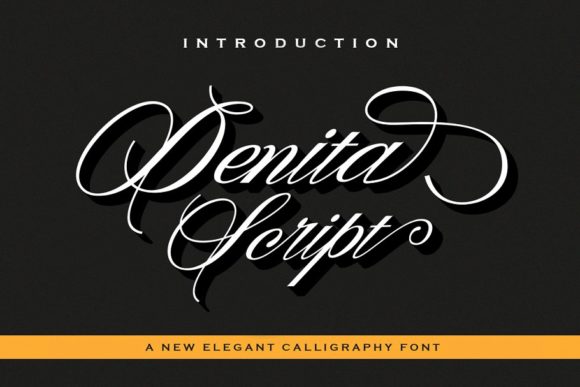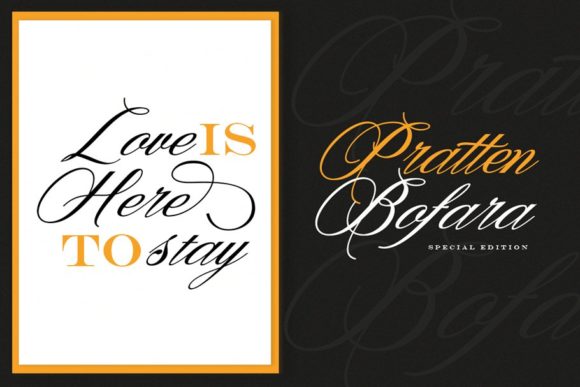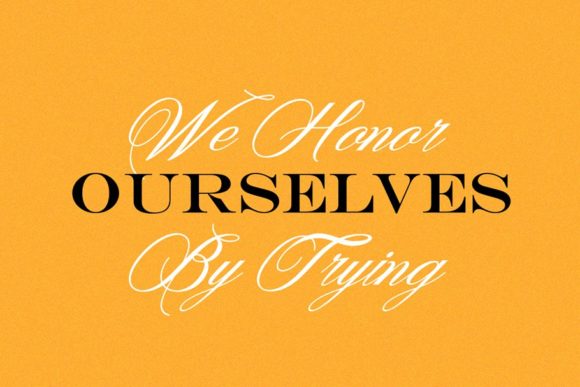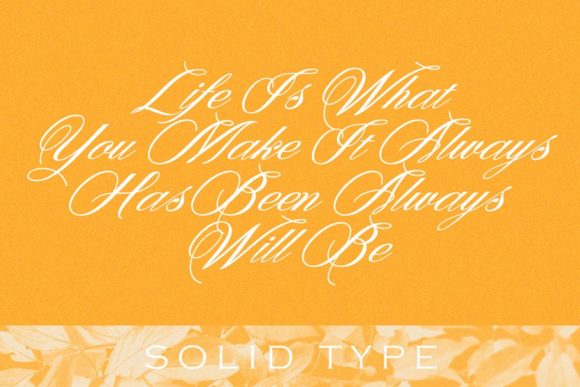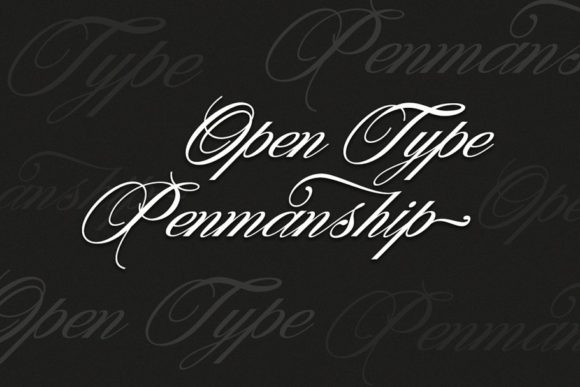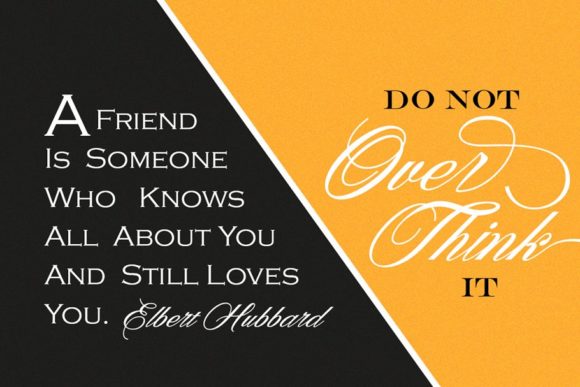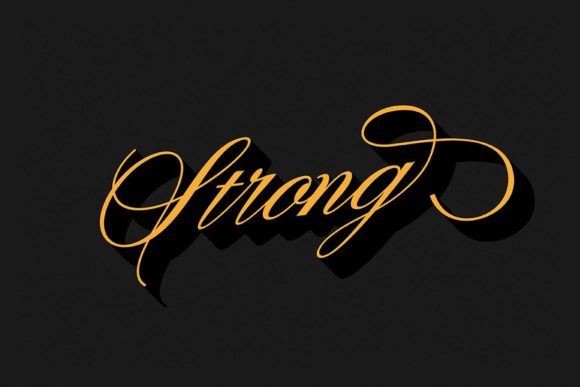
HomeScript FontsDenita Font Script Fonts Denita Font FacebookXPinterestWhatsApp Denita Font Poster 2 Denita Font Poster 3 Denita Font Poster 4 Denita Font Poster 5 Denita Font Poster 6 Denita Font Poster 7 About Denita Font Denita is a simply beautiful and legible script that will add a sophisticated touch to any creative idea. DOWNLOAD NOW People also explored Charming Font Arkarna Font Azure Blooms Hand Font Monday Free Font Esterya Font Someday Rich Font YWFT Nim Southeast Asia Light Font Font Save Summer Font 298 0 TagsDenita Font Previous articleCottina FontNext articleAchelan Font LEAVE A REPLY Cancel reply Comment: Please enter your comment! Name:* Please enter your name here Email:* You have entered an incorrect email address! Please enter your email address here Website: Save my name, email, and website in this browser for the next time I comment. Personal Use Free Cline Personal Use Free Read more about this font Good Mood Personal Use Free Read more about this font Dealisya Personal Use Free Read more about this font Broodfath Personal Use Free Read more about this font BLOG To increase your work productivity, choose the most readable fonts. In today's fast-paced work environment, where digital communication and information consumption are integral to our daily routines, the choice of fonts can significantly impact... Where to Buy American Fonts Online in 2024 Exploring Font Trends How to Cut Any Font on Cricut: Convert a Font to SVG (Free)